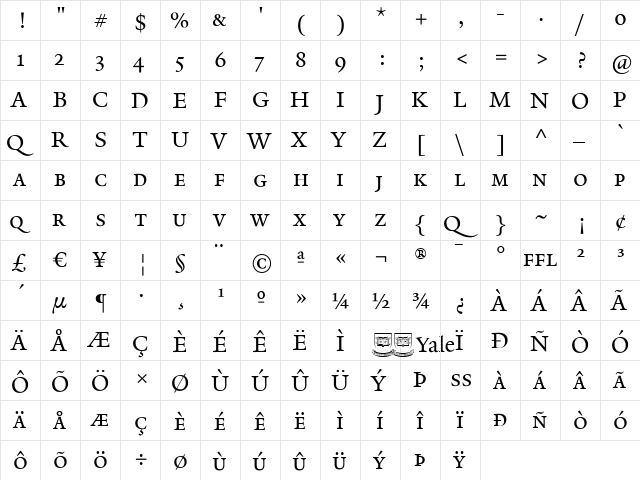
YaleSmallCap Regular
| Foundry | Carter & Cone Type Inc |
Design Context for YaleSmallCap Typeface
YaleSmallCap takes a measured approach to typography — its balanced proportions and neutral character make it a reliable workhorse for both digital and print work.